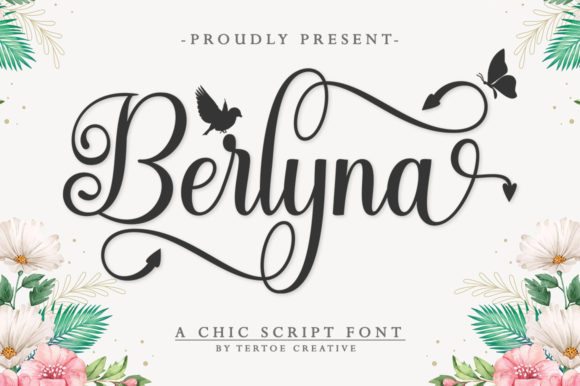
The Magical World of Berlyna Font: A Designer’s Delight
I’ll never forget the moment I stumbled upon Berlyna Font while working on a DIY project for a client’s wedding invitation. I had been searching for the perfect script font for hours, but nothing seemed to fit the elegant and whimsical vibe I was going for. That was until I discovered Berlyna, a magical script font that exceeded my expectations in every way. In this article, I’ll share my experience with Berlyna, its features, and how to make the most of this beautiful font.
An Honest Review of Berlyna Font
What I Love About Berlyna ✨
- 💫 Elegant and whimsical design that’s perfect for creative projects
- 🌈 Highly versatile and adaptable to various design styles
- 👍 Excellent for Instagram graphics, calligraphy scripts, and DIY projects
- ⚠️ Some users may find the font a bit too ornate for certain projects
The Story Behind Berlyna Font
Berlyna Font was created with a passion for elegant and whimsical design. The designer aimed to craft a font that would inspire creativity and add a touch of magic to any project. With its PUA encoding and extensive glyph library, Berlyna has become a go-to font for designers and crafters alike.